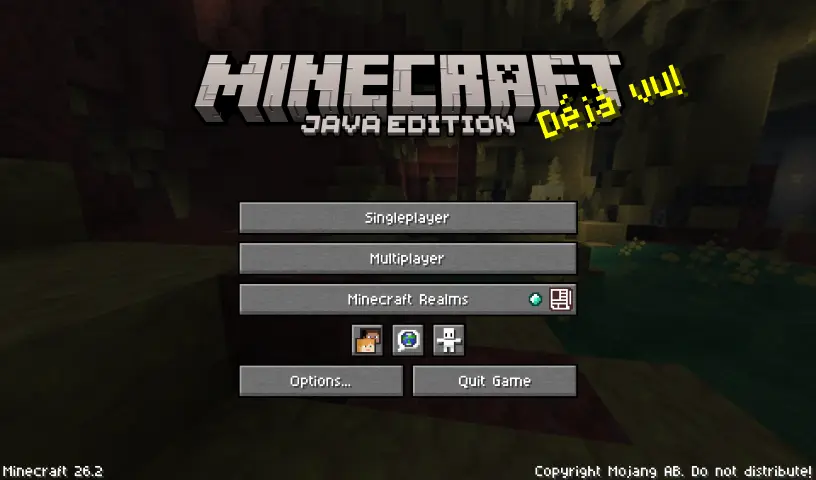
Aseprite is a popular pixel art editor for creating sprites, frame-by-frame animations, and retro-style graphics. It features a simple but sleek font for its interface that fits perfectly within Minecraft!
This pack currently supports all languages that use the Latin, Cyrillic, or Greek alphabets, but there's more to come!
Modifications
Because Minecraft gives each glyph more pixel space compared to Aseprite, I've modified them slightly for a smoother and cleaner look. Also, most glyphs in the game are not supported by Aseprite, so I tried to recreate them as close to the Aseprite style as possible.